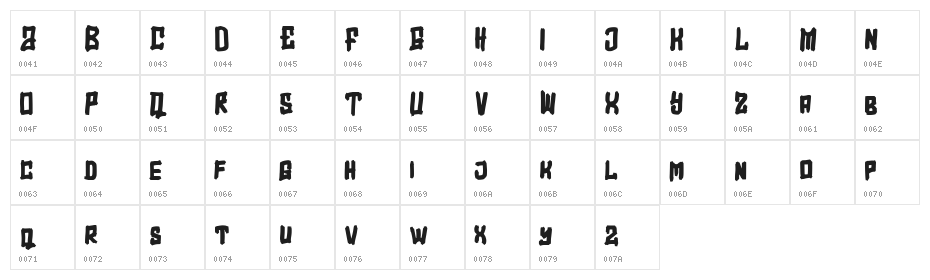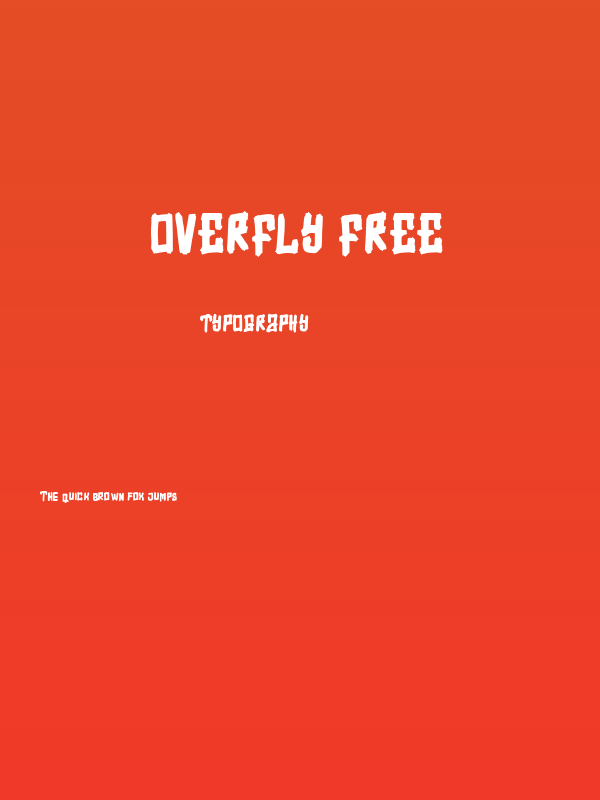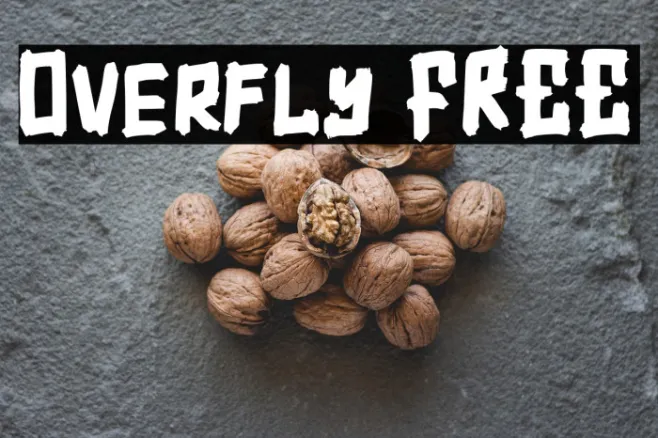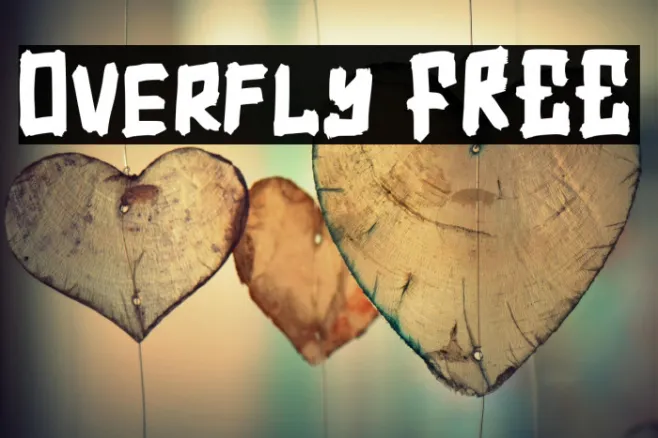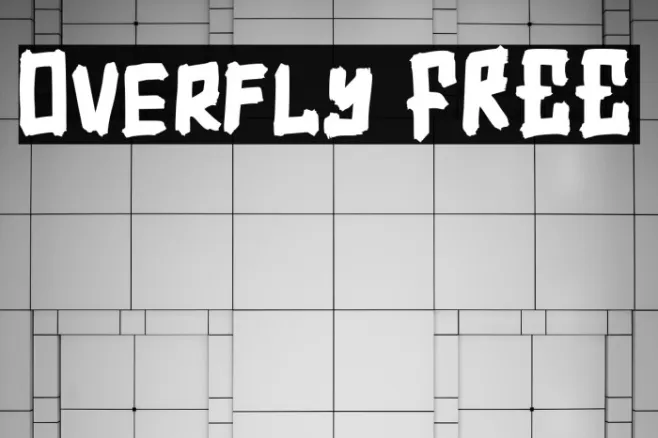
Overfly FREE Font
Overfly FREE Description
This font features a bold, dynamic style with a strong presence. The characters are designed with sharp, angular edges and a slightly distressed look, giving it a rugged and edgy appearance. The uppercase letters are particularly striking, with a uniform height and width that create a cohesive look across the alphabet. The lowercase letters maintain the same boldness, ensuring readability while adding a touch of uniqueness. The numbers and special characters are consistent with the overall style, making this font versatile for various uses. Its distinct appearance makes it ideal for projects that require a strong visual impact.
OVERFLY-FREE UPPERCASE
OVERFLY-FREE LOWERCASE
OVERFLY-FREE OTHER CHARS
| Overall Style | Edgy, Rugged |
| Proposed Projects | Ideal for posters, album covers, branding materials, and any project needing a strong visual impact. |